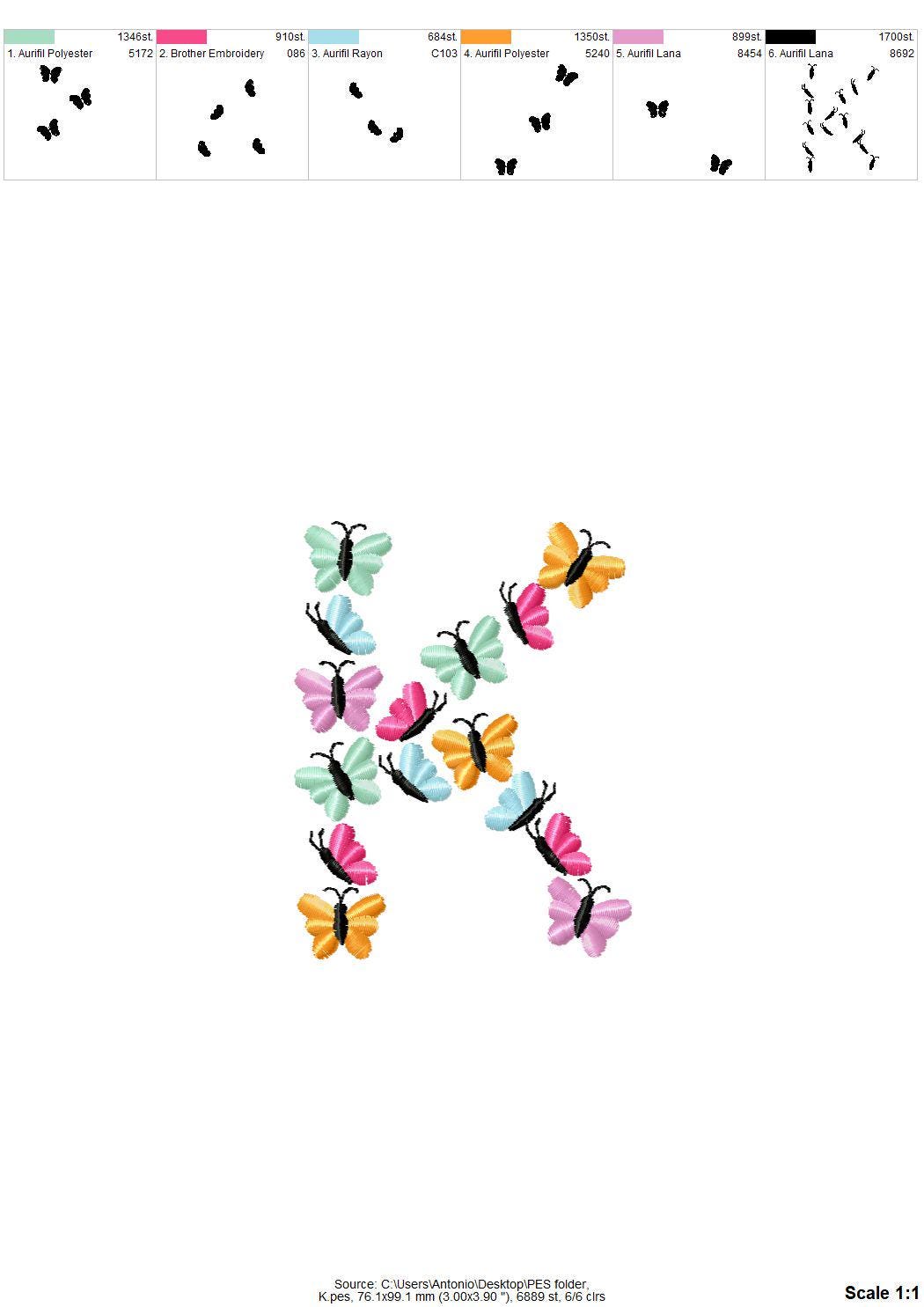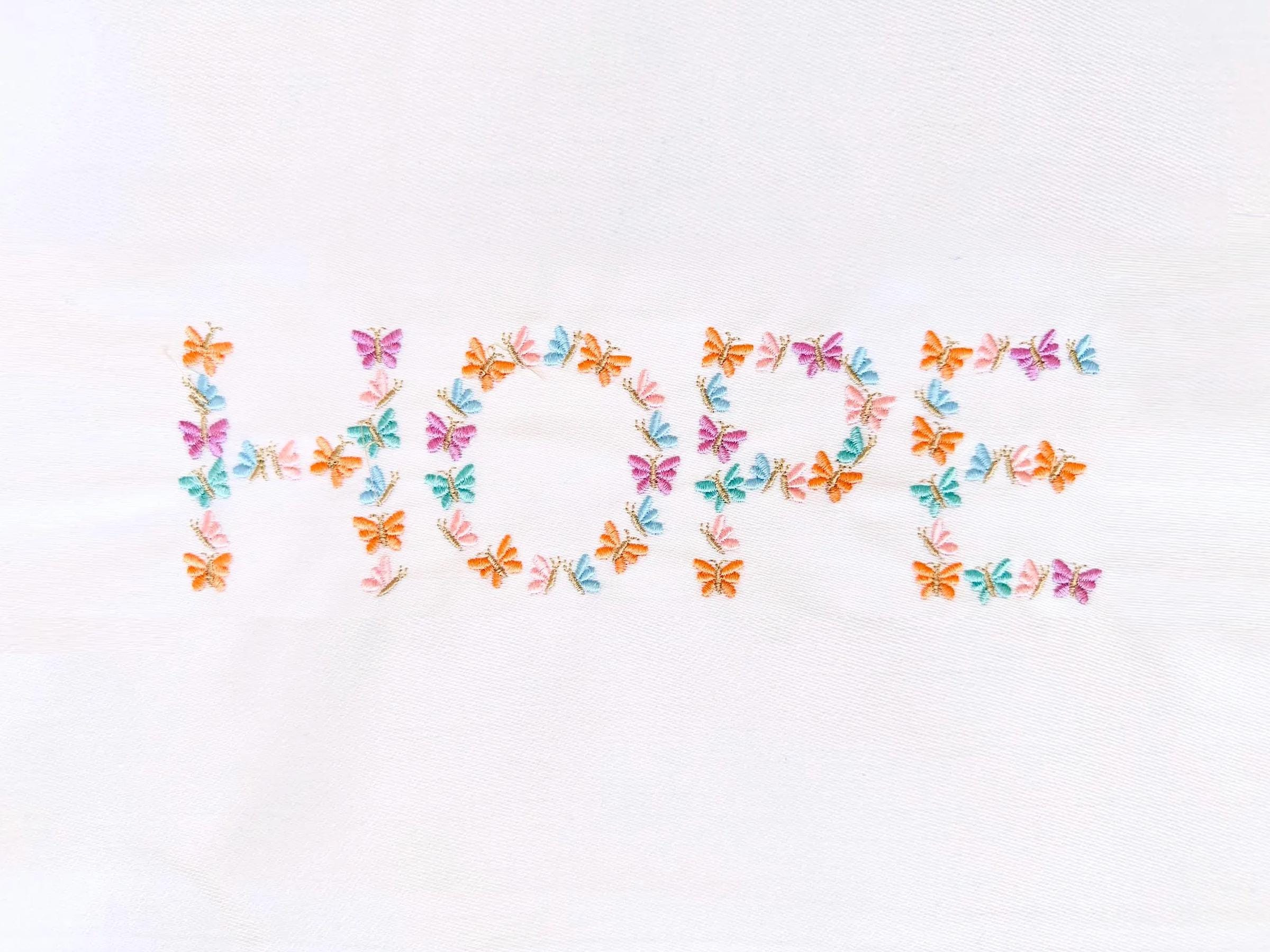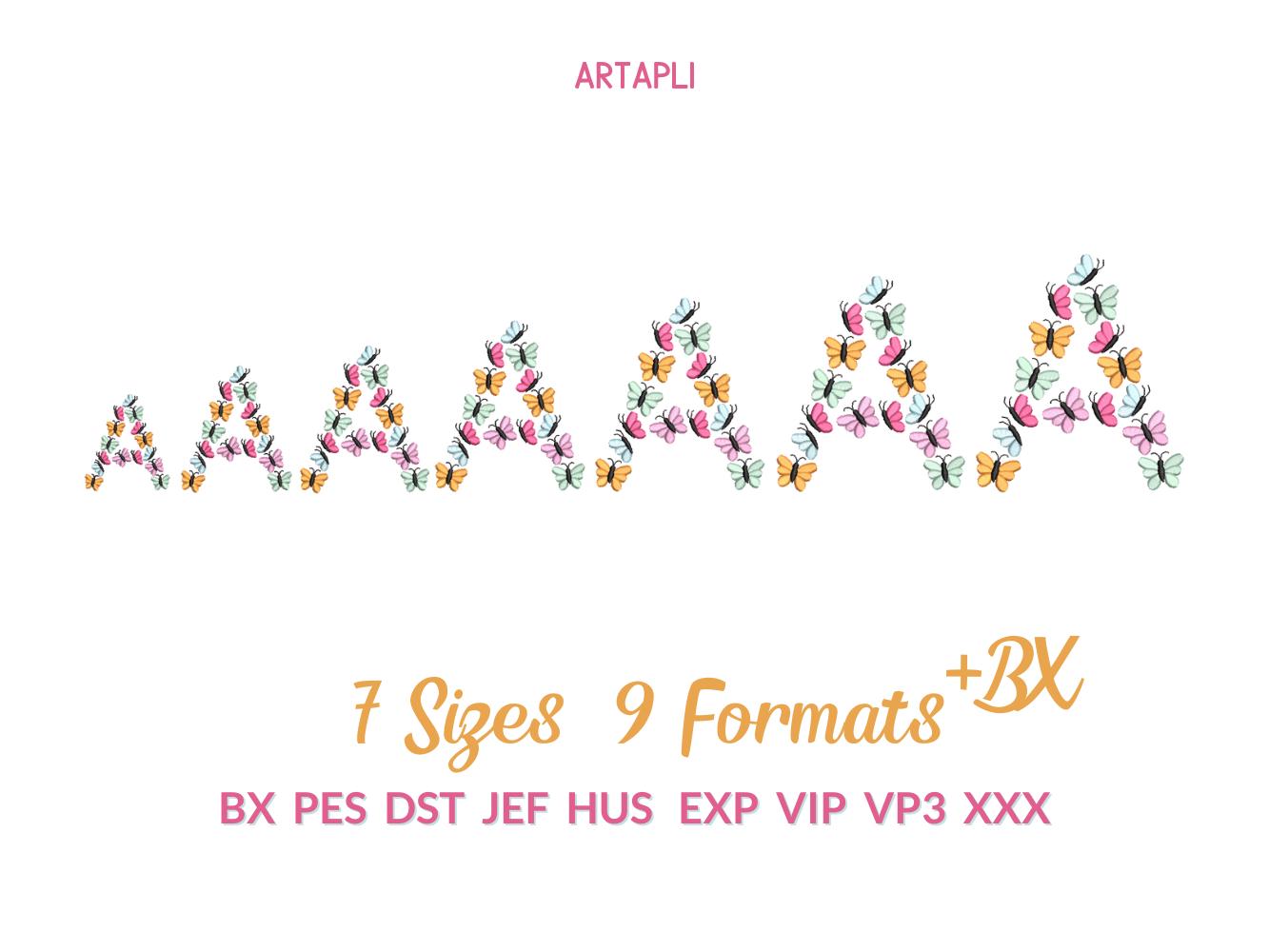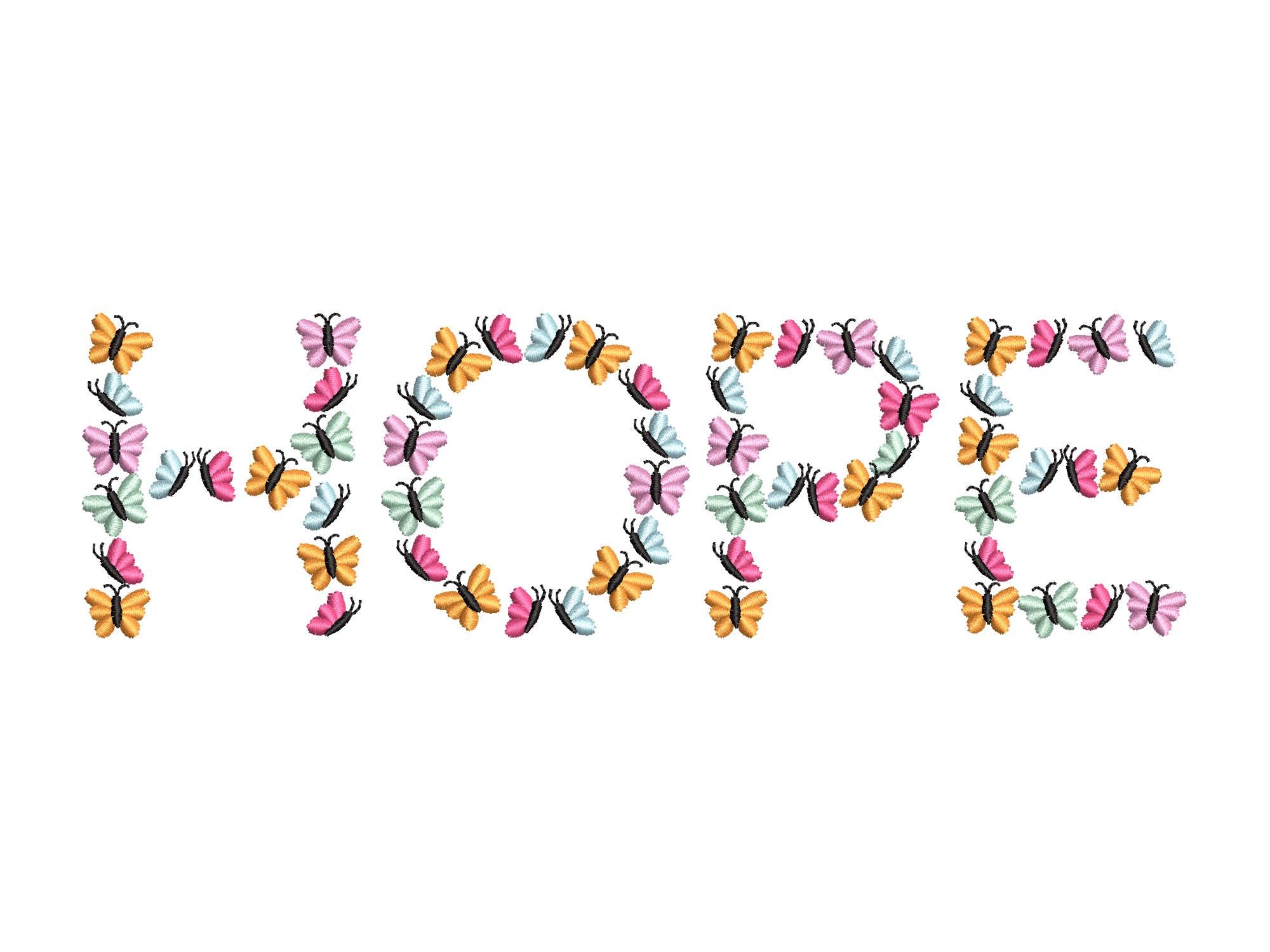
Butterfly Font alphabet tiny wee butterflies machine embroidery designs flowered font Summer floral monogram multiple sizes 2.5 to 6.3 inches, BX included
Whole alphabet capital letters A-Z.